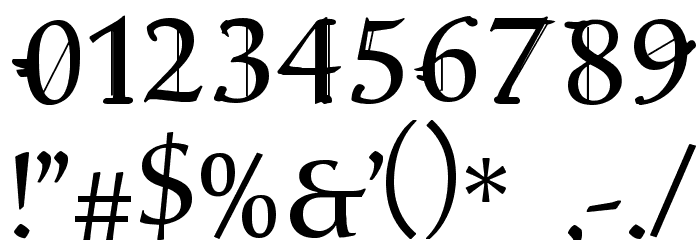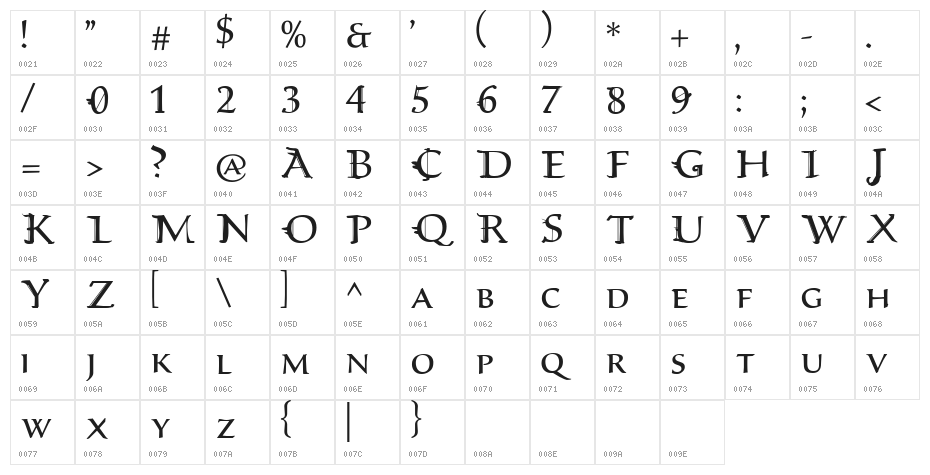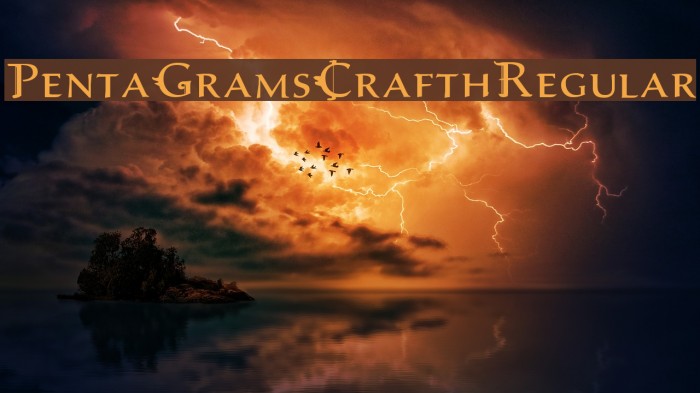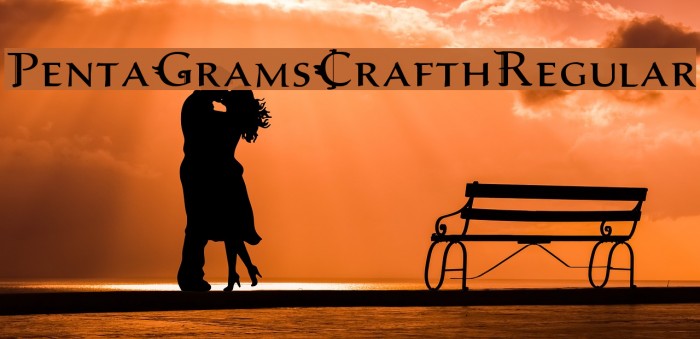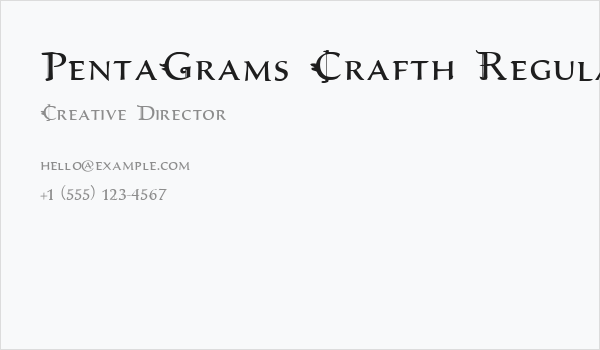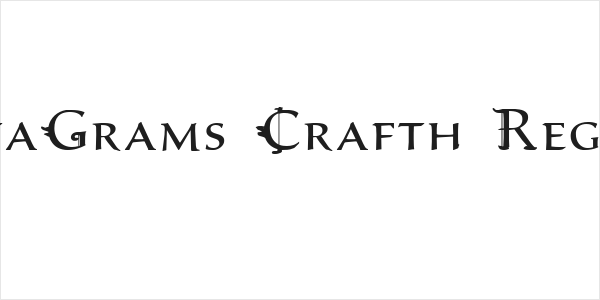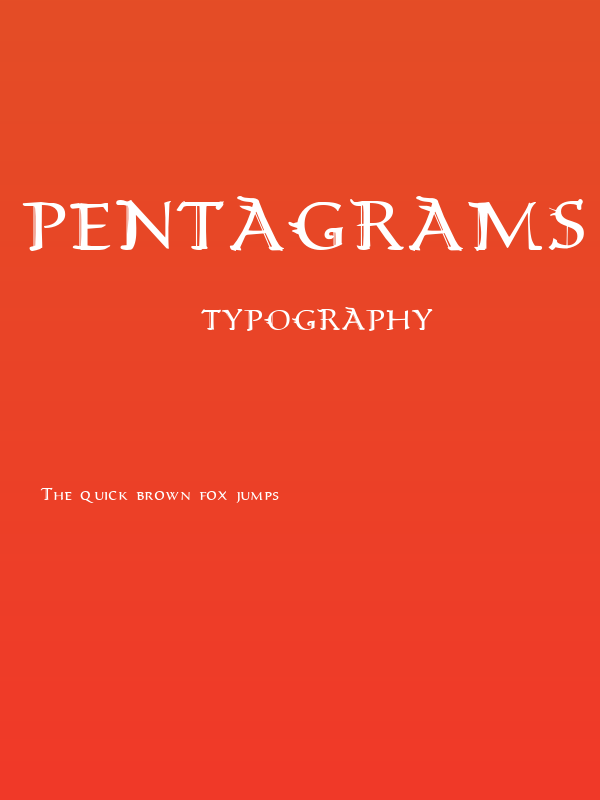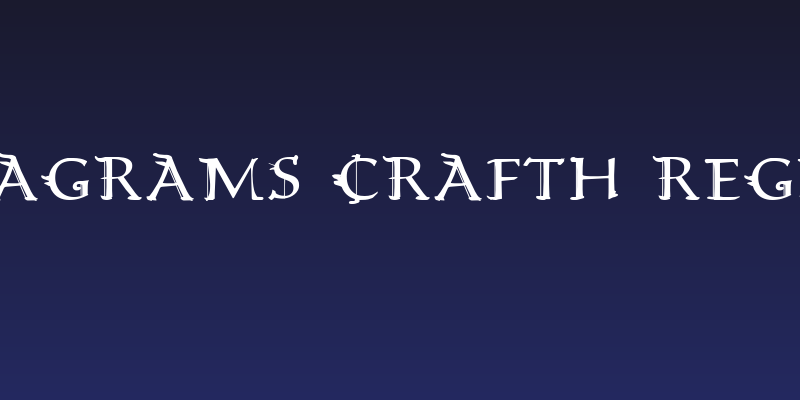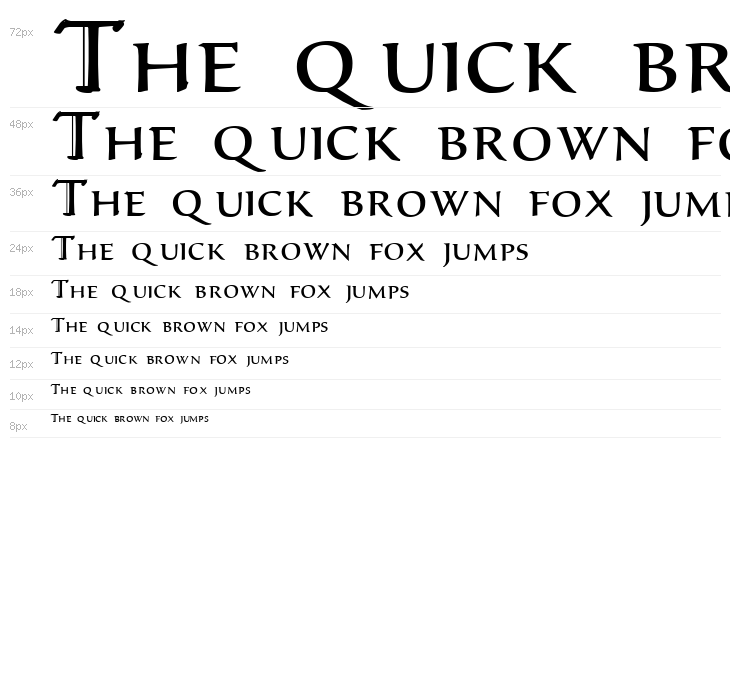
PentaGrams Crafth Regular Font
PentaGrams Crafth Regular Description
This font presents a unique blend of traditional and modern elements, characterized by its distinct, sharp serifs and angular strokes. The uppercase letters exhibit a bold presence with a slight medieval touch, while the lowercase letters maintain a consistent style that complements the uppercase. The numerals are crafted with a similar attention to detail, ensuring uniformity across the set. Special characters are designed to match the overall aesthetic, providing a cohesive look. The font's intricate design makes it suitable for projects that require a touch of elegance and sophistication.